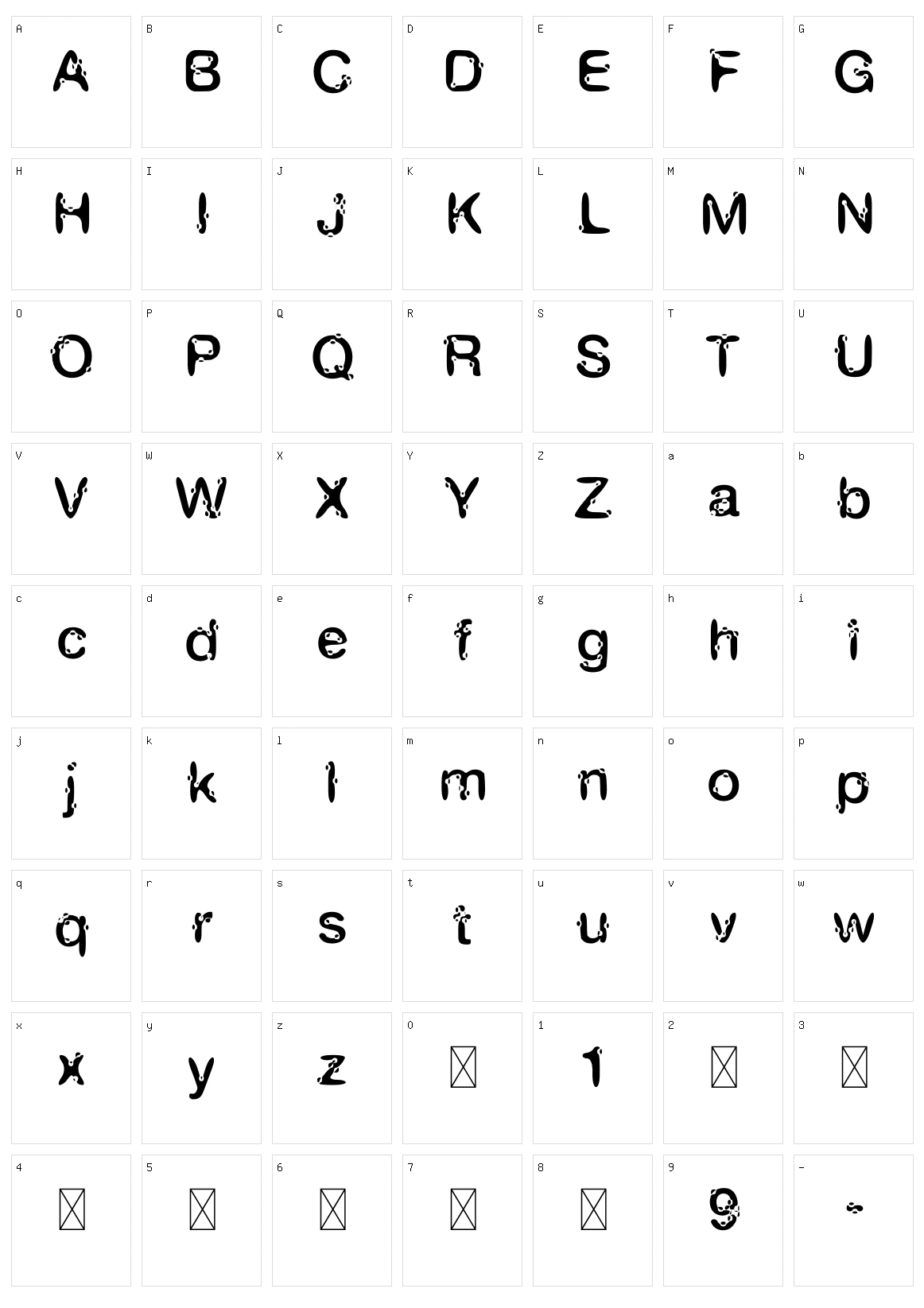
COVID-SY FREE
Covid-SY is a distorted display typeface designed for posters, banners and headlines.
The font is dedicated to current global problems.